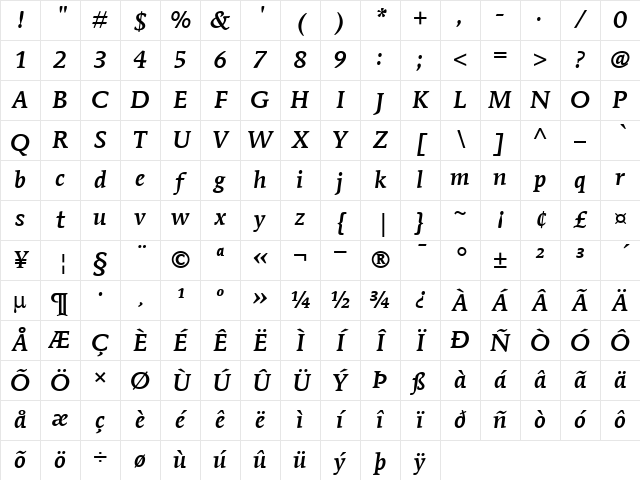
ITCMendozaRoman-Medium MediumItalic
Design Context for ITCMendozaRoman-Medium
ITCMendozaRoman-Medium is a composed and adaptable typeface that performs quietly and consistently across a wide range of design contexts. The slanted form adds forward momentum and visual energy.
Pro Tip: Use ITCMendozaRoman-Medium for emphasis, pull quotes, and subheadings where its slanted energy can add rhythm to the layout.